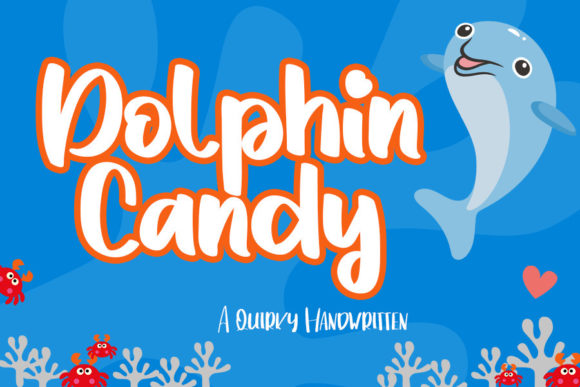
Embark on a Fantastical Journey with Dolphin Candy Font: Ignite Your Imagination and Unleash Creativity
In a world where artistry meets enchantment, let Dolphin Candy Font be your muse. This captivating handwritten font exudes a playful spirit that breathes life into any creative endeavor. Dive into a realm of endless possibilities where imagination flourishes and magic dances upon the page. Crafted with meticulous care and a touch of whimsical charm, Dolphin Candy is an invitation to embark on a journey filled with wonder and delight.
With its enchanting loops and cheerful ascenders, Dolphin Candy is a symphony of joy that dances before your eyes. Its playful nature adds a touch of whimsy to birthday cards, apparel designs, and children's coloring books, transforming them into vibrant canvases of storytelling and imagination. Engage young minds and bring smiles to their faces as they explore new worlds and embark on extraordinary adventures alongside captivating characters.
For those who dare to dream, Dolphin Candy is your magic wand, transforming ordinary words into enchanting tales. Weave captivating children's books that transport readers to realms filled with talking animals, mischievous fairies, and valiant heroes. Unleash your creativity and captivate young hearts with stories that ignite their imaginations and leave them spellbound.
Let Dolphin Candy be the spark that sets your creativity ablaze. Explore the boundless possibilities of this delightful font, designed to inspire and empower your artistic vision. Embrace the spirit of playfulness and let your imagination soar to new heights. Join the artistic revolution and make Dolphin Candy your secret weapon to unlock a world of creativity and charm..